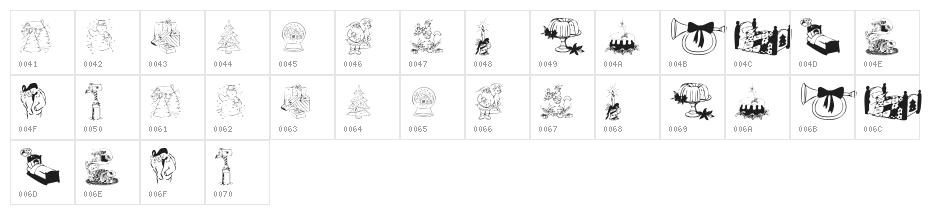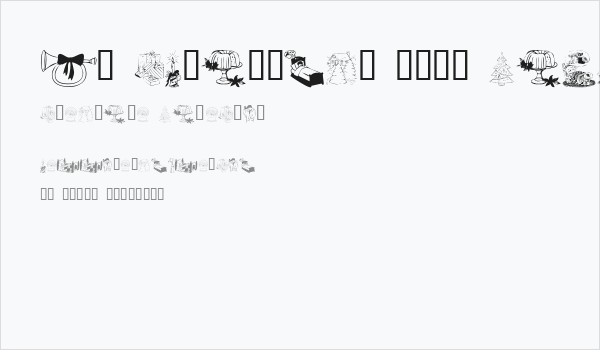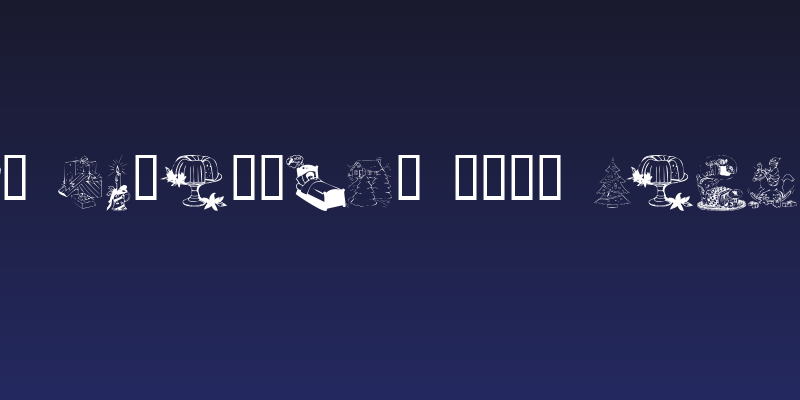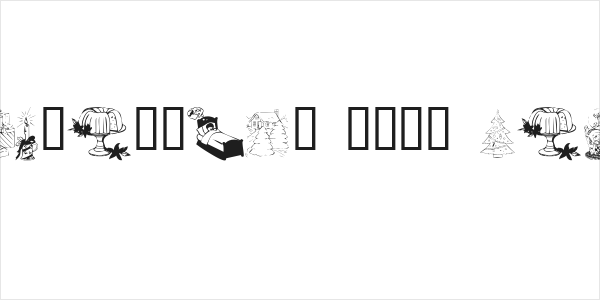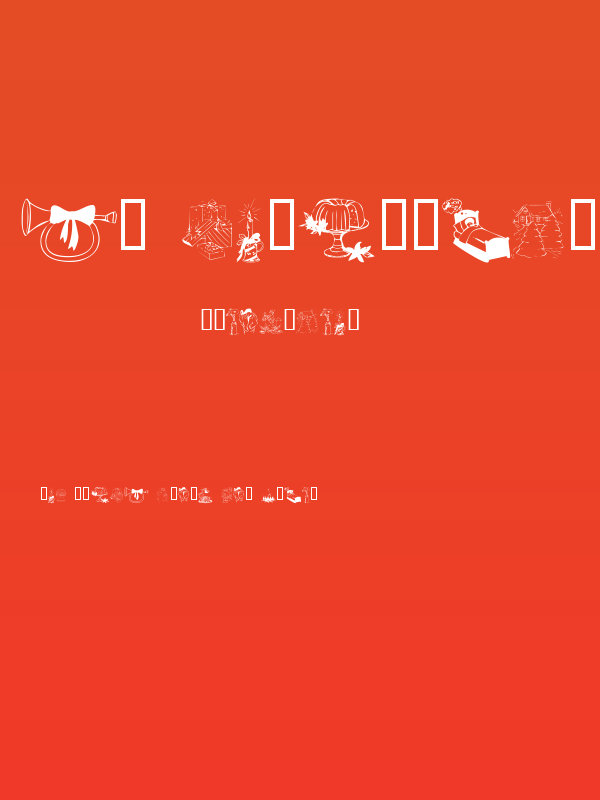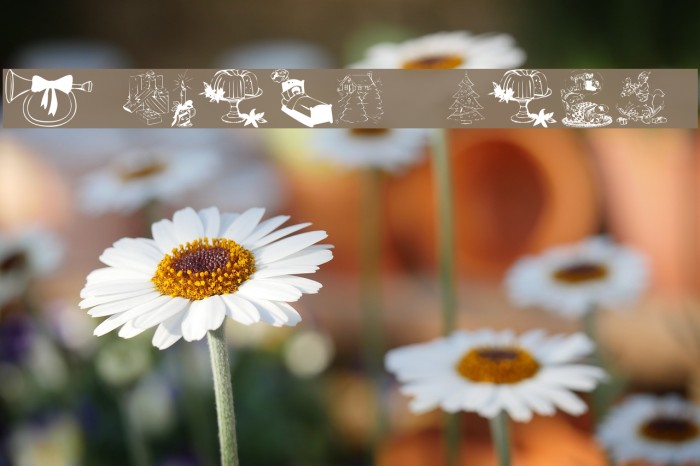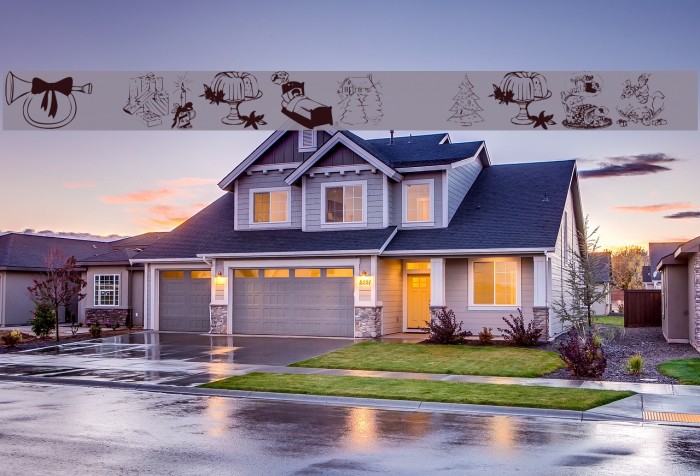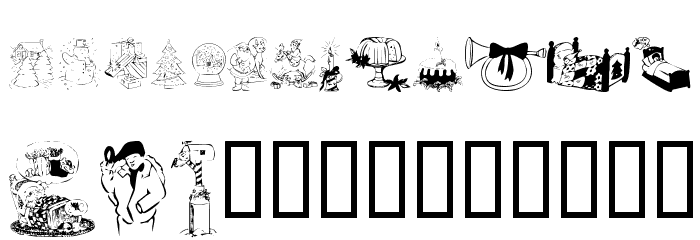
KR Christmas 2002 Dings 1 Font
KR Christmas 2002 Dings 1 Description
This is a decorative font featuring a series of Christmas-themed dingbats. Each character is represented by a unique festive illustration, including images of Santa Claus, Christmas trees, snow globes, and other holiday motifs. The style is playful and whimsical, capturing the joyful spirit of the holiday season. The illustrations are detailed and varied, making it suitable for adding a festive touch to any project. The characters are evenly spaced, ensuring clarity and readability despite the intricate designs.
| Use Case | Logos, Headlines, Decorative elements |
| Proposed Projects | Ideal for holiday cards, festive invitations, Christmas-themed posters, and seasonal decorations. |